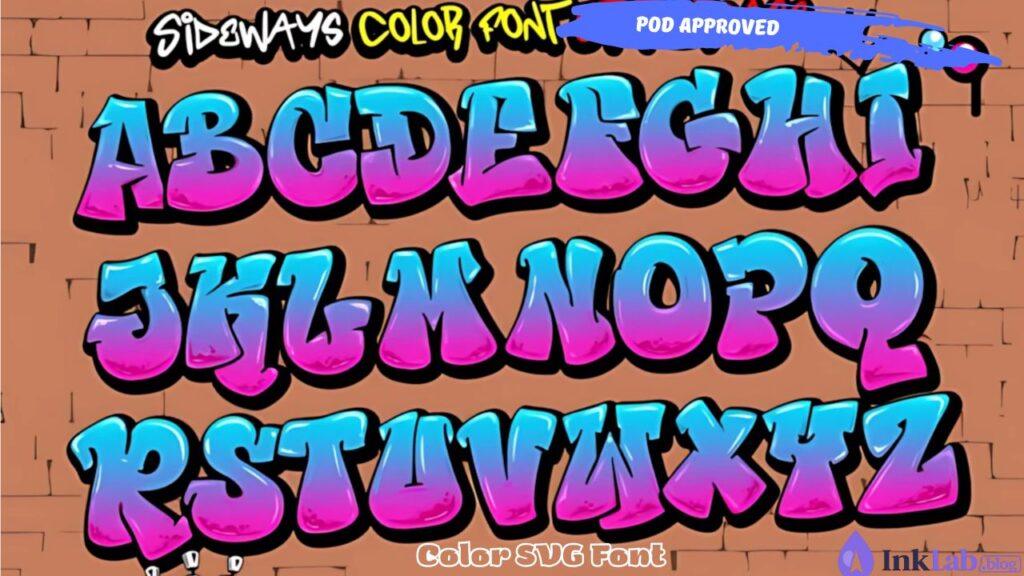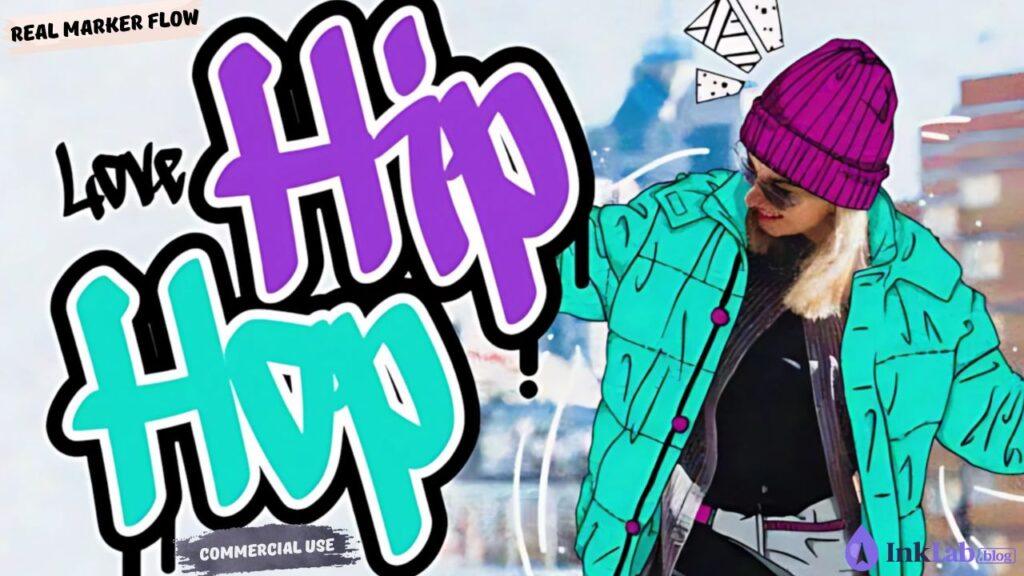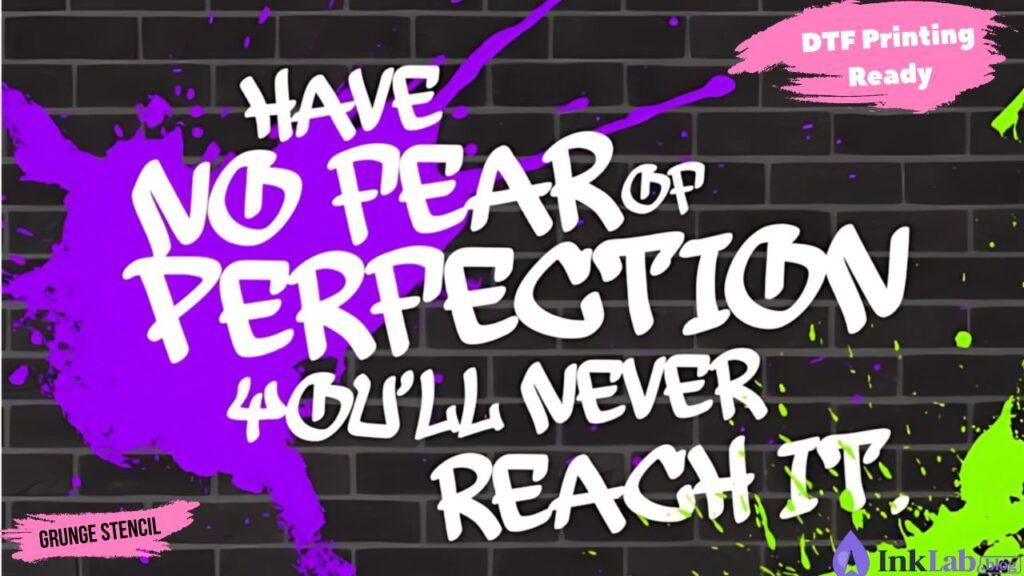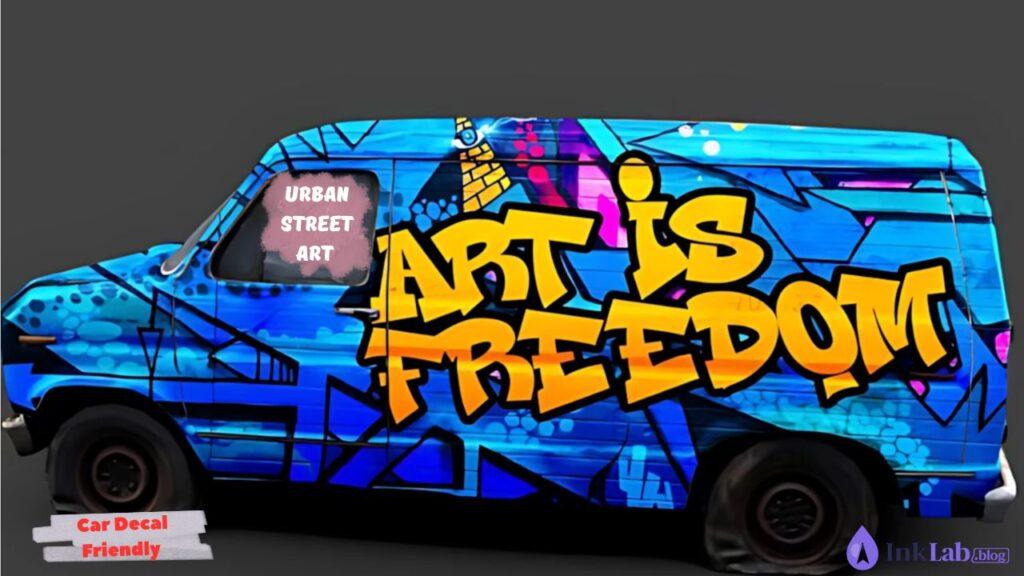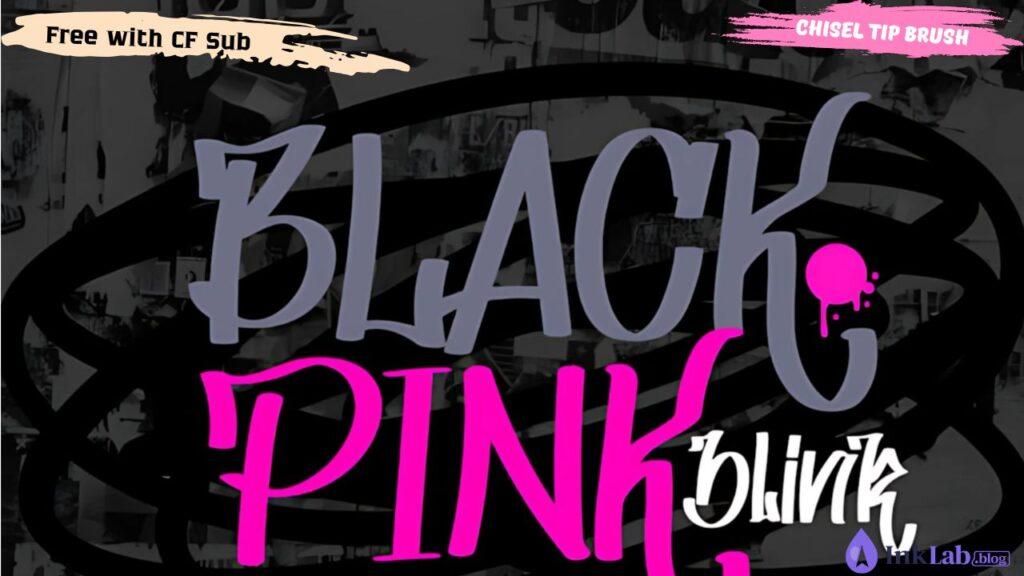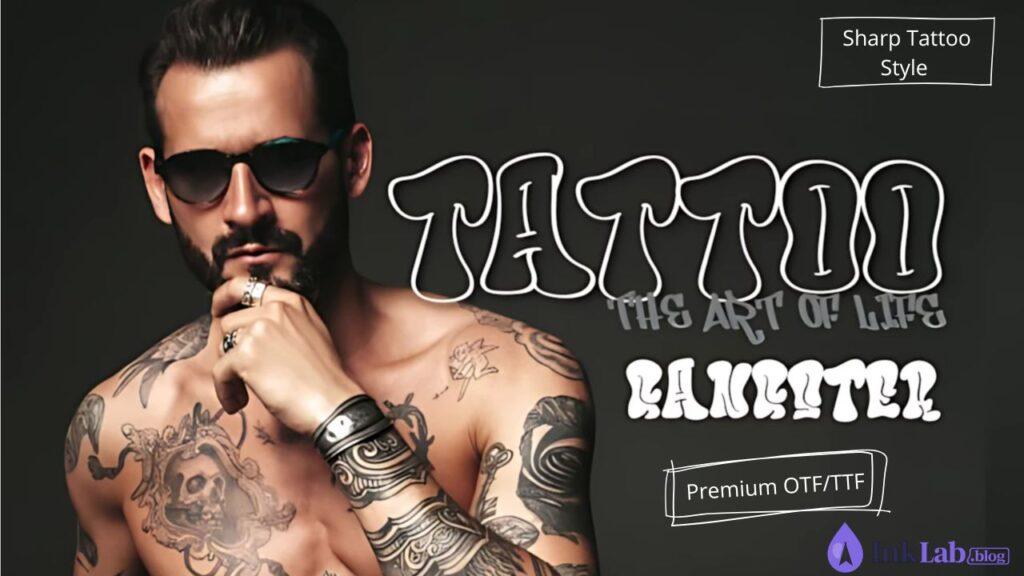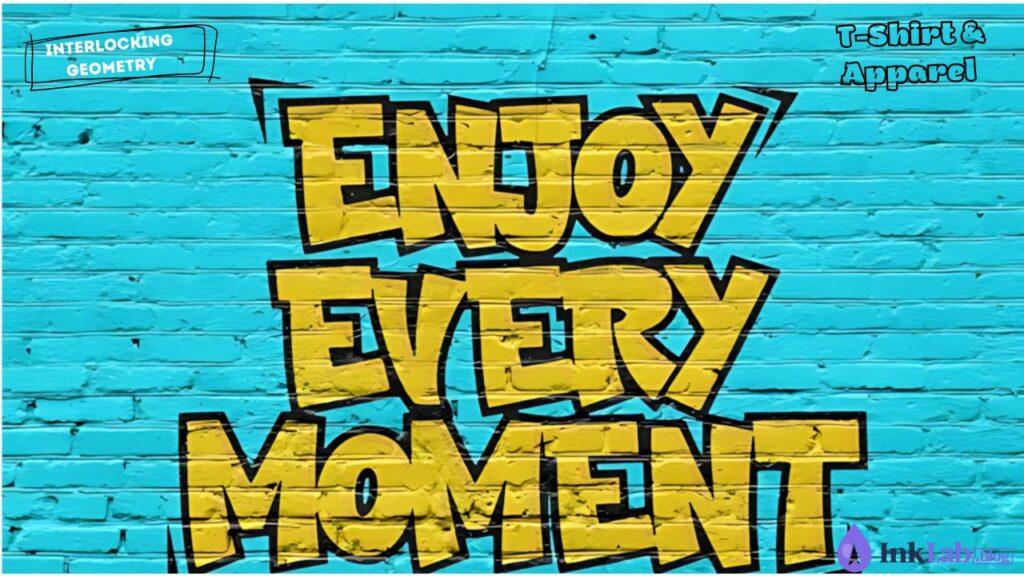
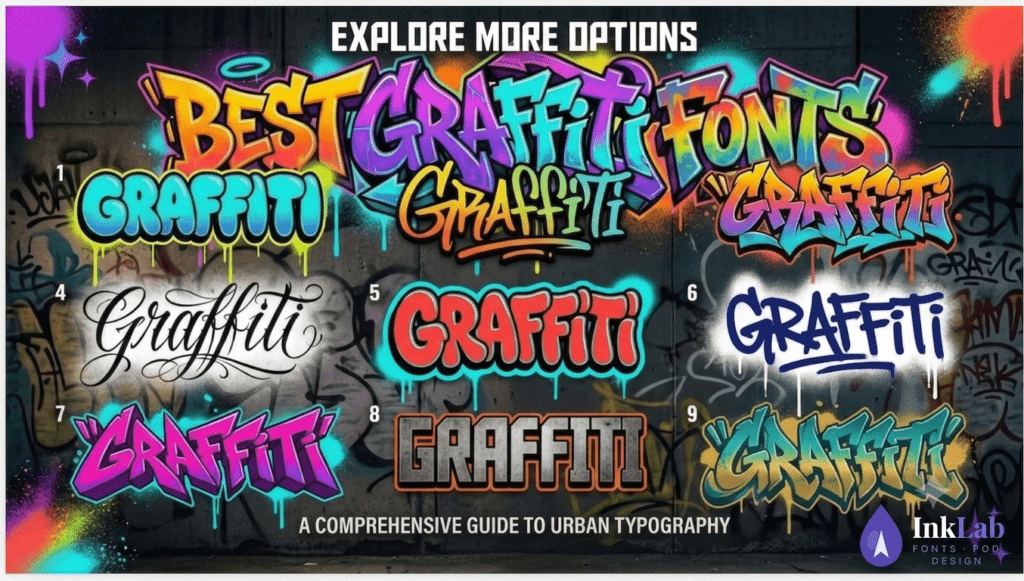
The best graffiti fonts for Cricut and Print on Demand bring bold urban energy to any project — whether you’re cutting vinyl, designing POD t-shirts, or creating street-style merch. Here are the top 10 picks that combine visual impact with clean cutting lines — all available on Creative Fabrica.
🎨 What Makes a Good Graffiti Font for Cricut & POD?
Not all graffiti fonts work well for cutting or printing. The best ones have:
- Thick strokes — thin lines break during cutting and are hard to weed
- Closed letterforms — avoid fonts with tiny disconnected pieces
- Clear outlines — Cricut needs clean paths, not overlapping shapes
🖊️ Top 10 Graffiti Fonts for Cricut & POD
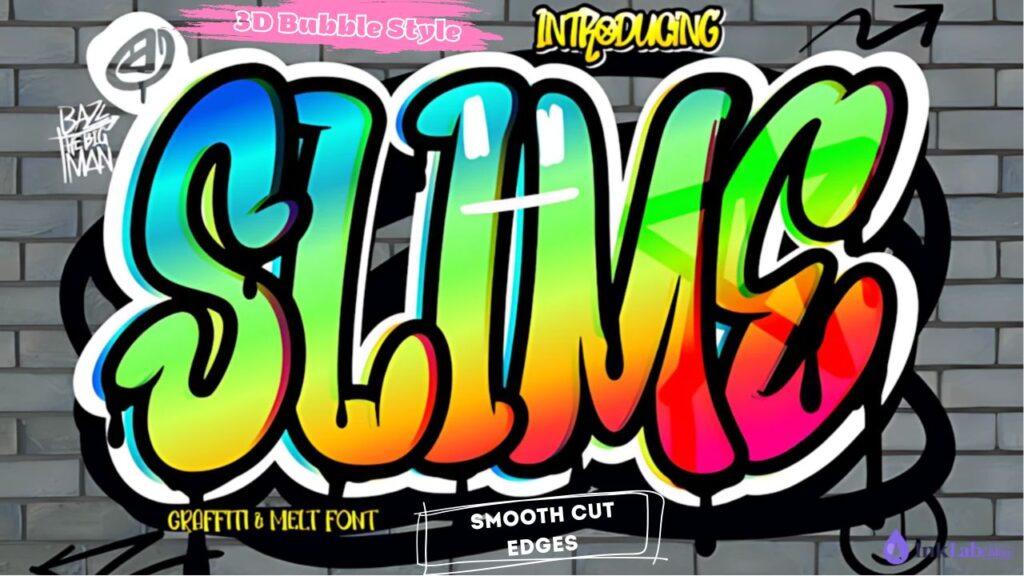
Slime Font
Bold drip-style graffiti font with thick strokes and organic edges. Cuts cleanly on Cricut and looks striking on POD t-shirts and hoodies. One of the most eye-catching graffiti styles for urban merch.
Sideways Font
Dynamic slanted graffiti font with bold italic energy. Perfect for POD apparel and vinyl decals — the forward lean gives designs a sense of speed and motion that stands out on any product.
Noise Font
Graffiti font with built-in texture and distressed edges — ideal for POD printing where you want that authentic spray-painted look. Works best for print rather than Cricut cutting due to the texture detail.
Something Font
Classic graffiti tag style with fluid, connected letterforms. Great for POD designs that need an authentic street art feel — works well on hoodies, caps, and tote bags.
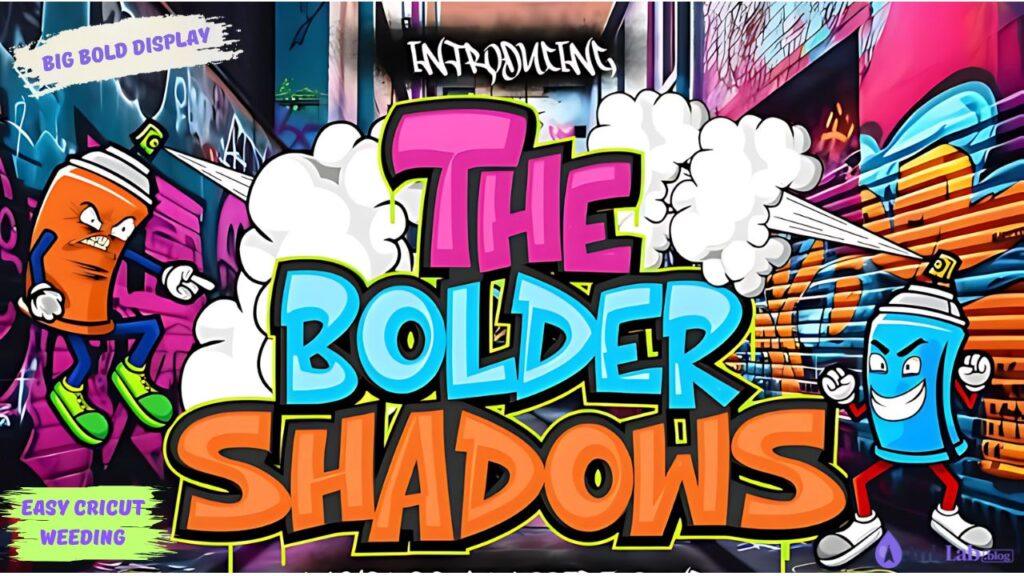
The Bolder Shadow Font
Bold graffiti font with built-in shadow effect that gives designs a 3D street art look. Perfect for merch and POD products where you want maximum visual impact without extra design work.
Fast Blaze Font
Urban graffiti font with sharp edges and a bold, aggressive look. Ideal for music posters, streetwear apparel, and POD designs targeting a younger urban audience.
Crash Font
Powerful bold graffiti font with strong visual presence. One of the best graffiti fonts for Cricut vinyl cutting — thick strokes weed easily and hold their shape even at smaller sizes.
Heart Font
Graffiti font with heart-inspired decorative elements — unique combination of street style and playful design. Perfect for Valentine’s Day POD products, personalized gifts, and love-themed Cricut projects.
Urban Gear Font
Industrial-meets-graffiti style with mechanical details — ideal for streetwear POD collections, urban brand designs, and Cricut projects targeting a fashion-forward audience.
Close Upz Font
Classic block graffiti lettering with clean outlines — one of the most versatile graffiti fonts for both Cricut cutting and POD printing. Works equally well on vinyl decals, HTV shirts, and digital designs.
- Weld connected letters — in Cricut Design Space, use Weld to join touching letters into one cuttable shape
- Use thicker fonts for small sizes — thin graffiti details disappear when cut small; stick to bold styles under 2 inches
- Test cut first — always do a test cut on scrap vinyl before cutting your main material
- For POD: use outline fonts — solid filled graffiti fonts print better than detailed outline-only styles
What is the best free graffiti font for Cricut?
Crash and Close Upz work best for Cricut because they have thick, clean block strokes that cut and weed easily. Avoid textured fonts like Noise for cutting — they work better for print-on-demand.
What graffiti font style works best for t-shirts?
Bold block styles like Crash, Close Upz, and The Bolder Shadow work best for t-shirts — they’re bold enough to read from a distance and print cleanly on POD products.